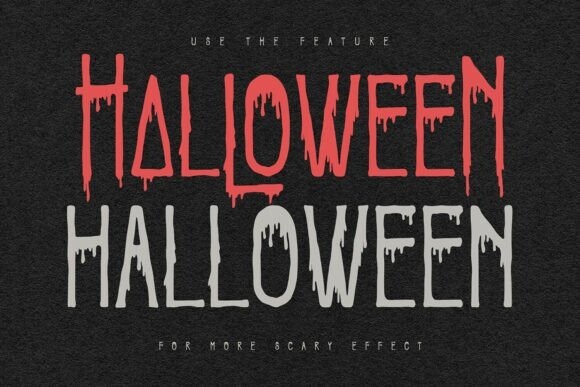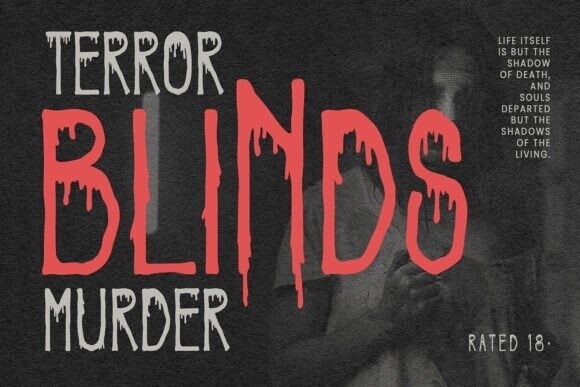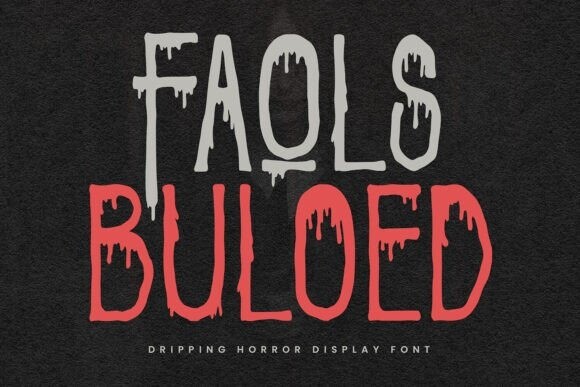
Faols Buloed Font
Designer: Maulana Creative
Faols Buloed Font, A Dripping Horror Display Fon, sounds like a spooky or eerie decoration or item. “Dripping Horror” suggests something creepy, possibly with oozing or wet details that make it look scary. “Display Fon” could be a way of showing or presenting this horror-themed design or decoration. In short, it’s likely a scary item meant to create a spooky, unsettling atmosphere.